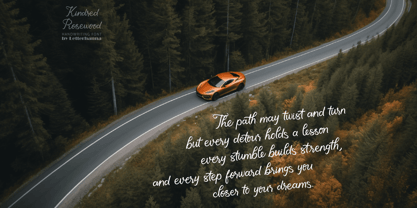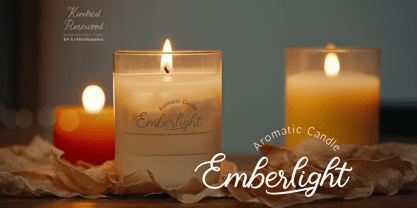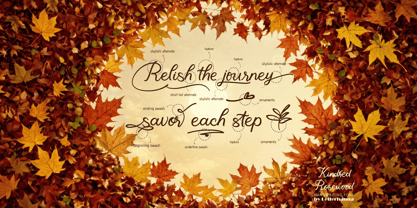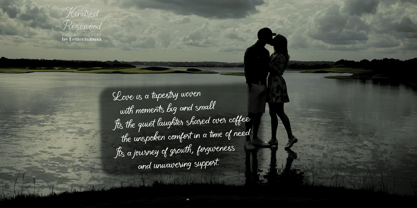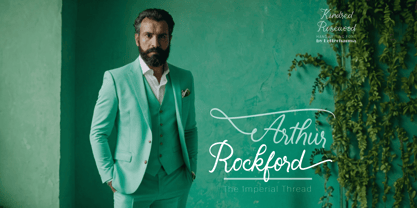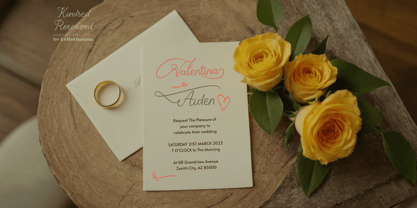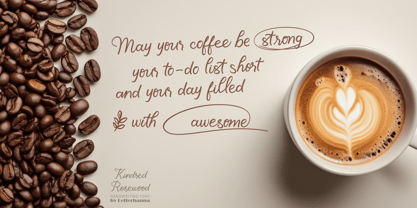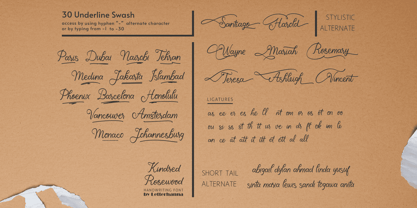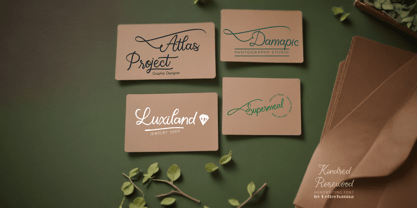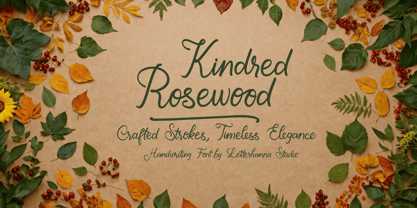
Kindred Rosewood
by Letterhanna Studio
The Kindred Rosewood Font Family was designed by Rinaldo Hasibuan and published by Letterhanna Studio. Kindred Rosewood contains 1 styles. More about this family
Kindred Rosewood is a beautiful new handwriting script font that combines organic, flowing letterforms with a touch of elegance. Its curves and strokes evoke a warm, natural feeling, making it perfect for a wide range of creative projects, from branding and logos to invitations and quotes. The font’s unique balance of readability and artistic flair gives it a sophisticated yet approachable look, ideal for adding personality to designs while maintaining clarity. Whether used for modern designs or vintage-inspired projects, Kindred Rosewood brings a timeless charm with a contemporary twist.
Designers: Rinaldo Hasibuan
Foundry: Letterhanna Studio